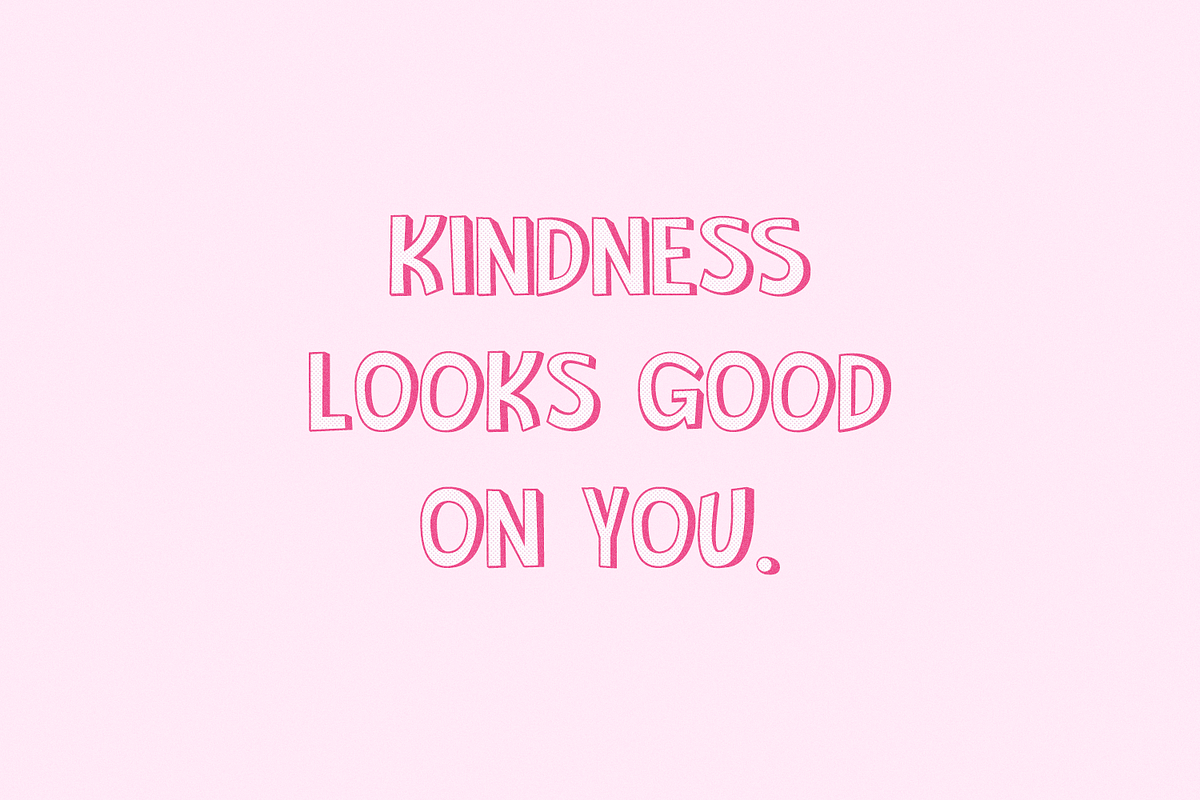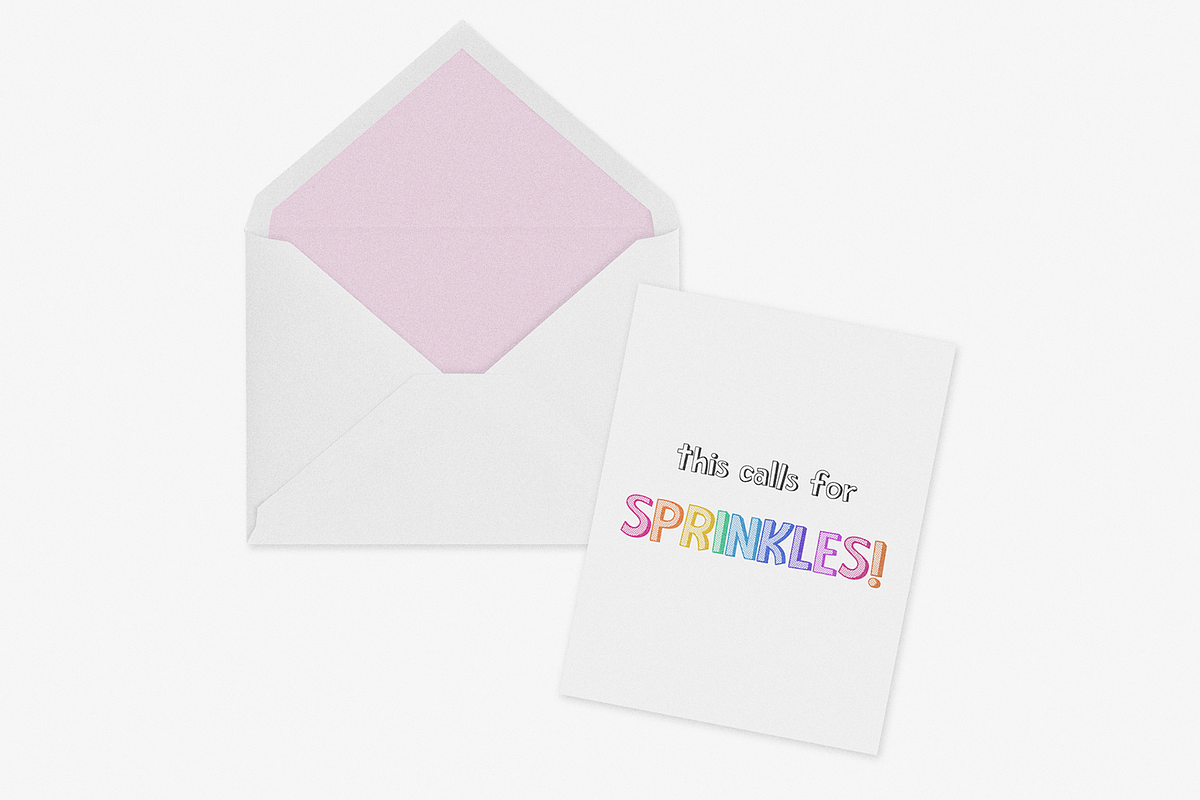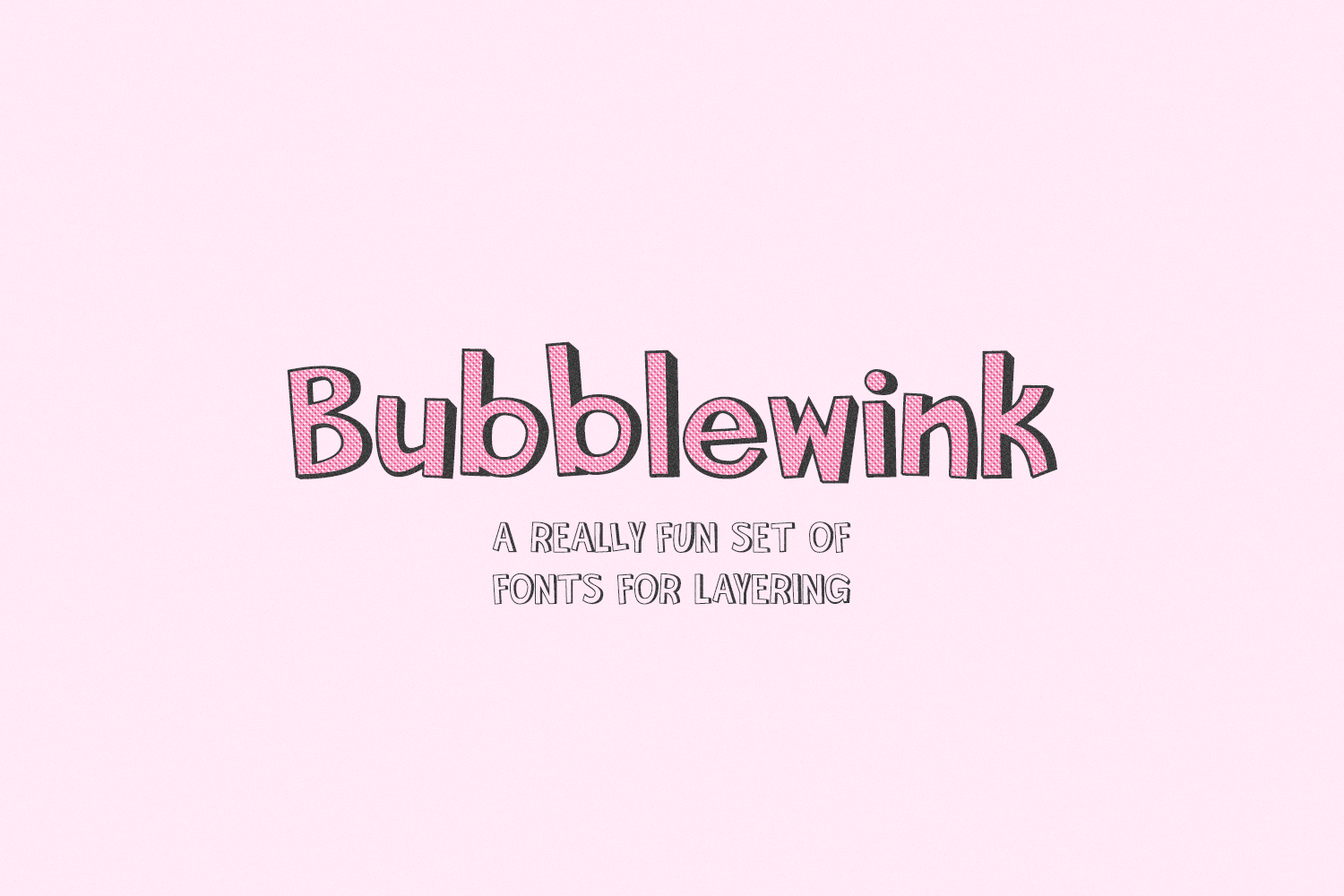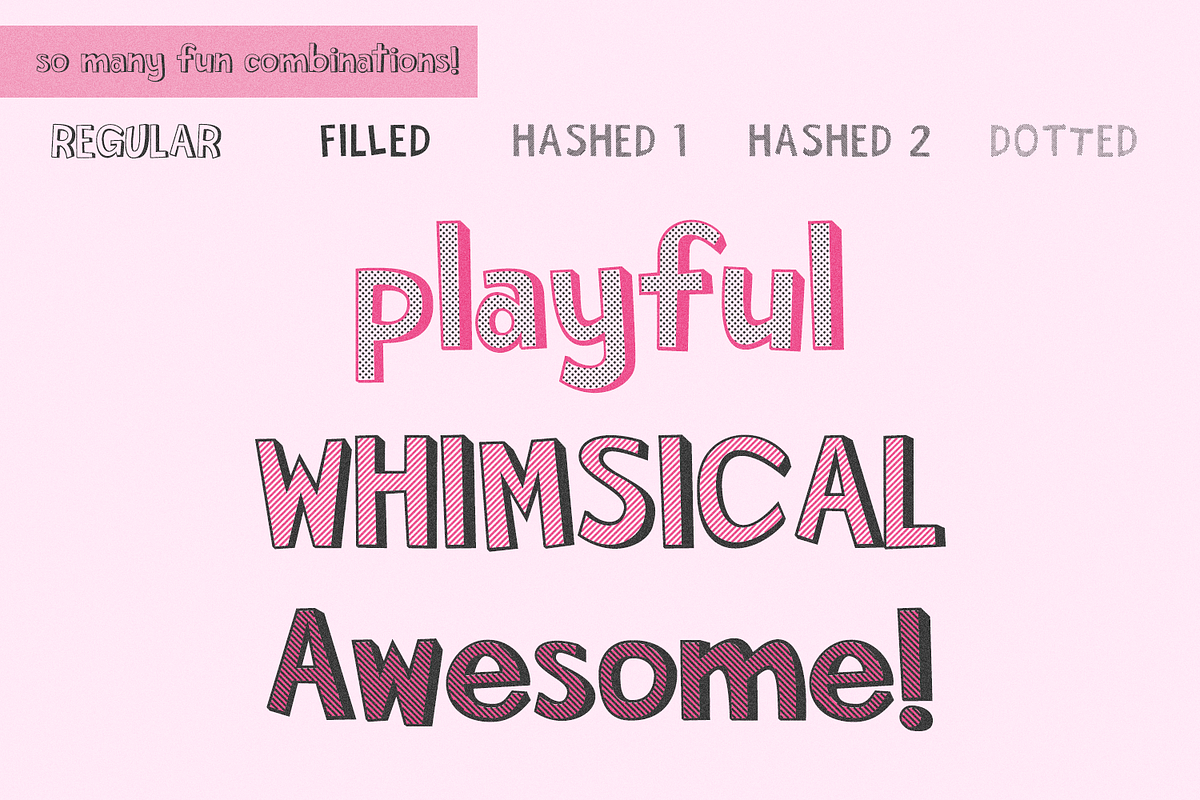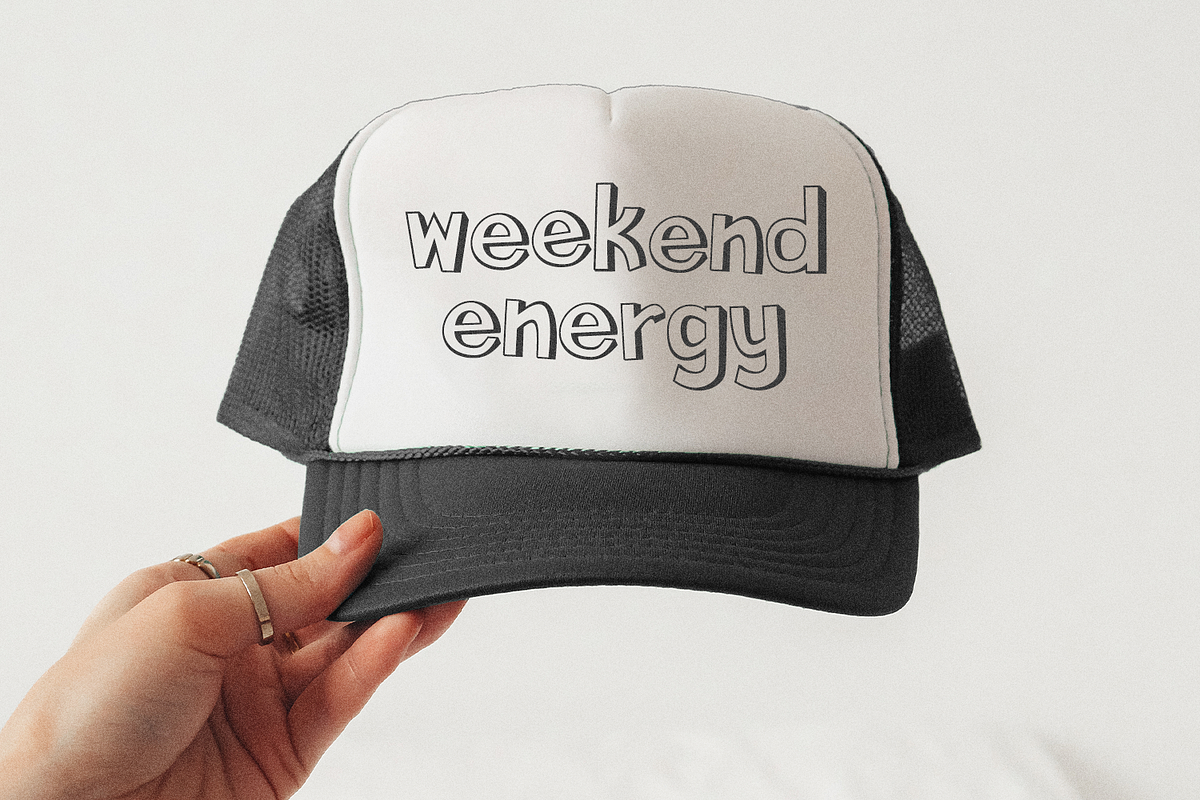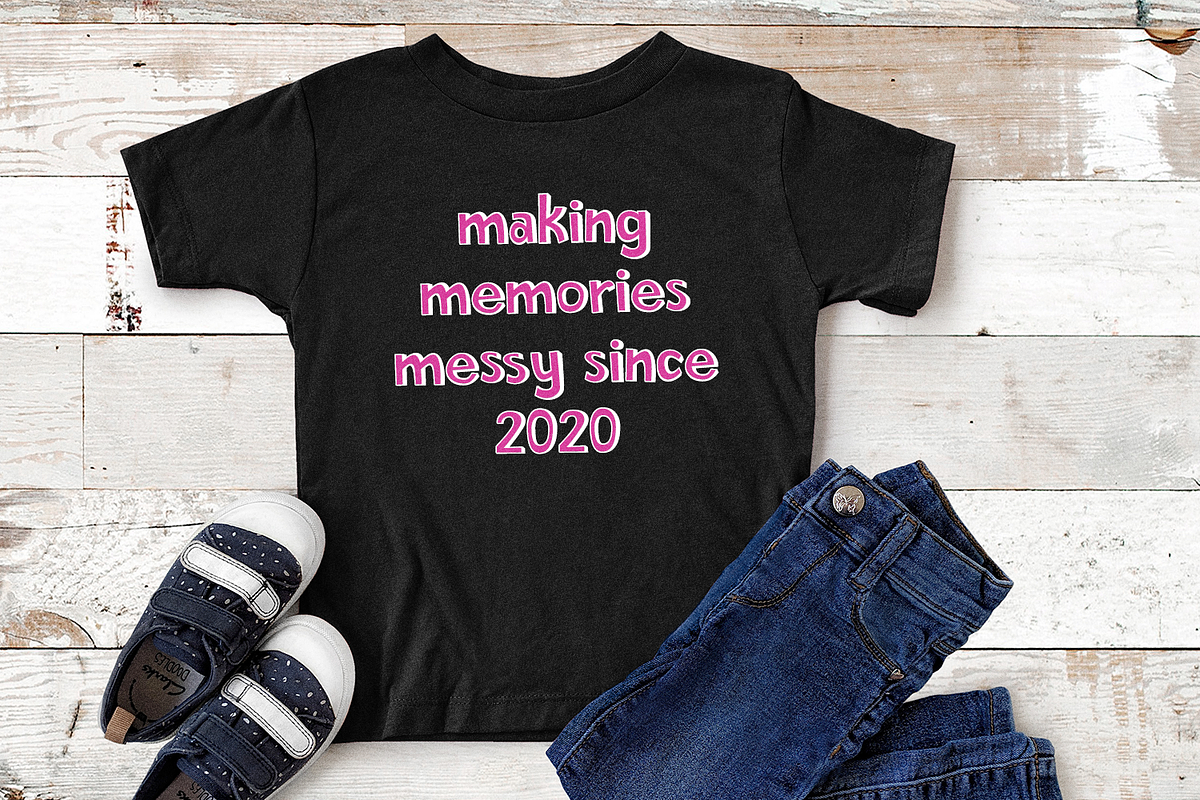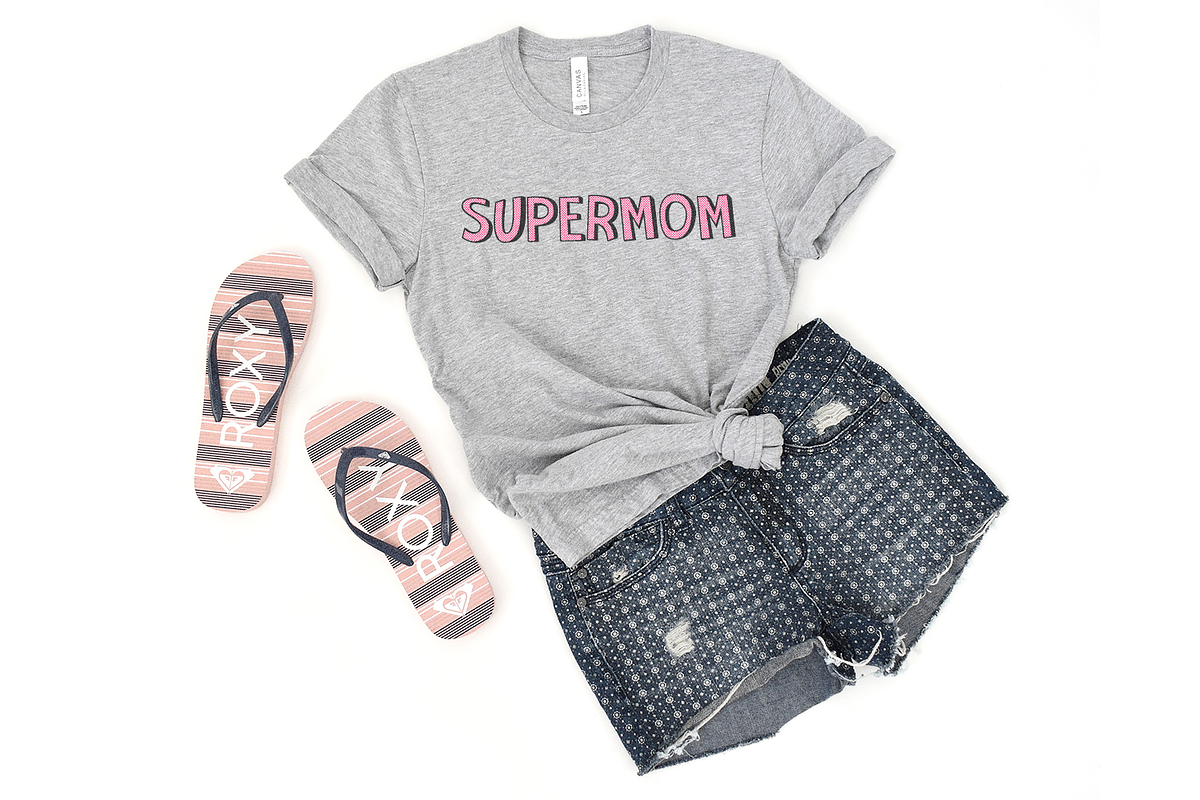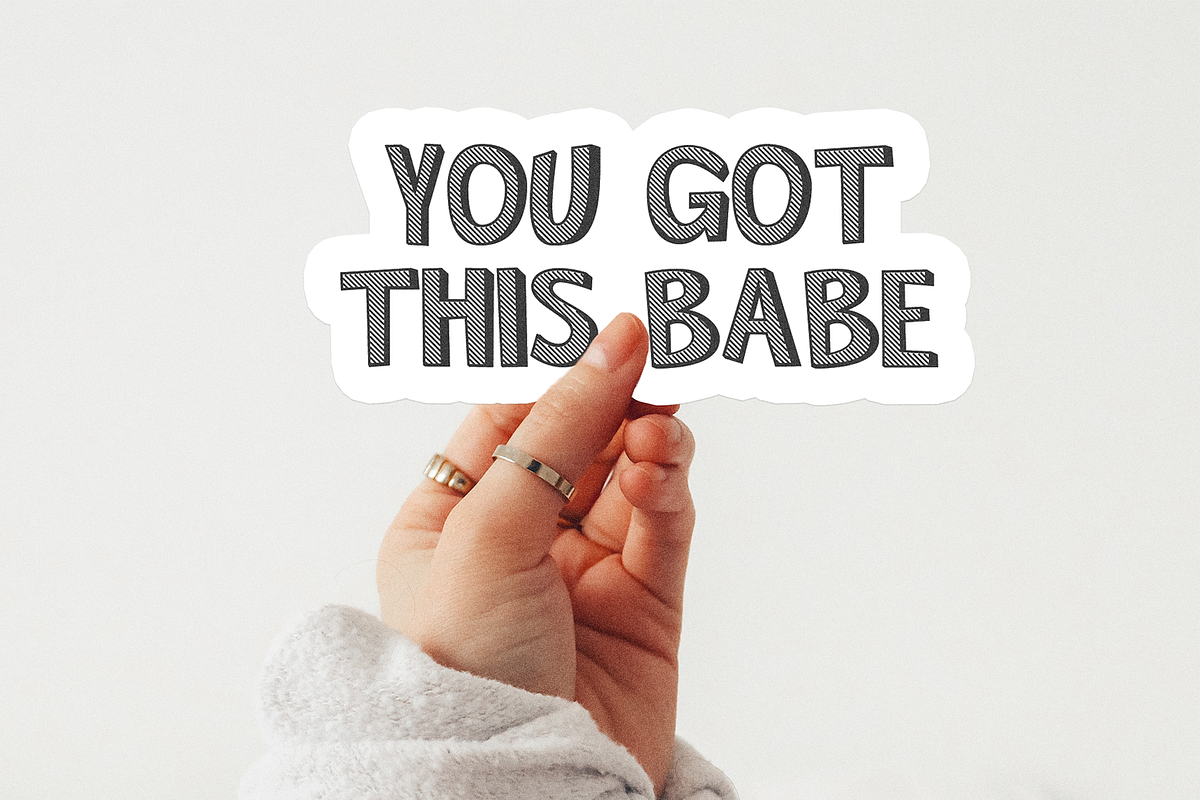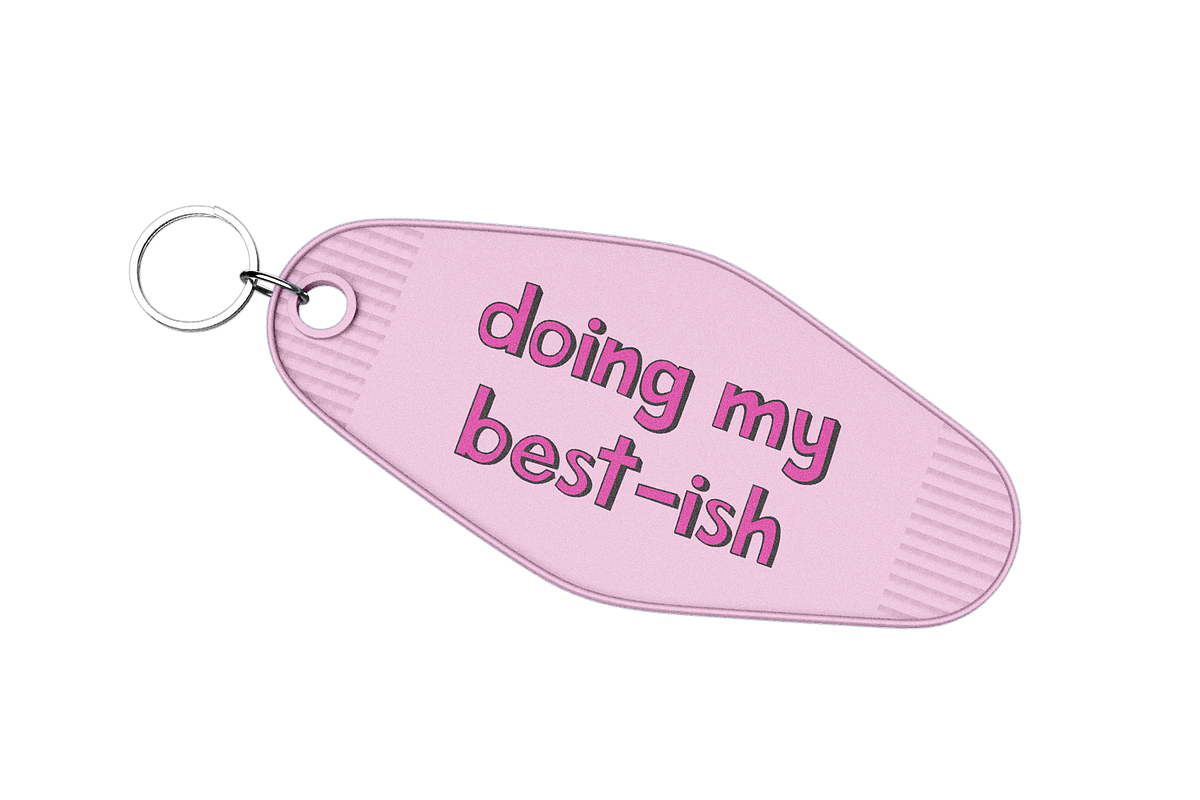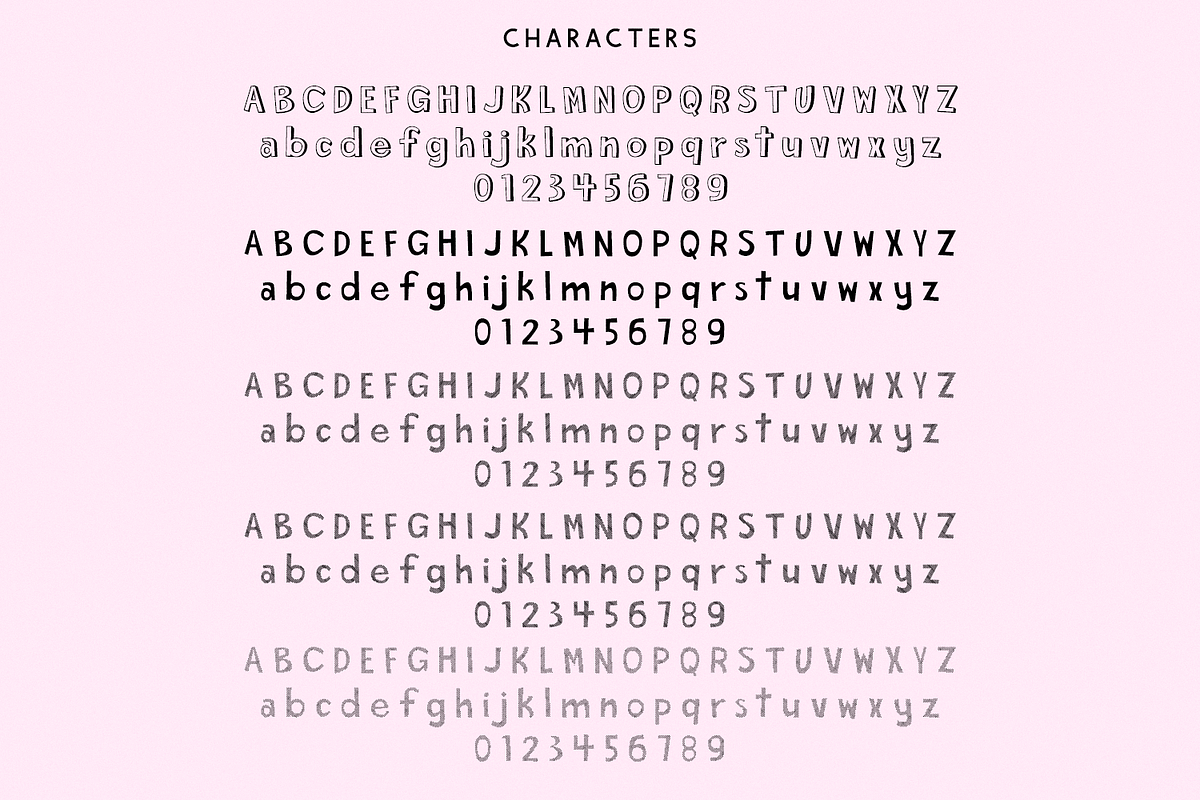
Bubblewink Sans - Fonts for Layering
Bubblewink Sans is a five font family designed for layering. Mix and match versions to create different layered effects using one color, or more than one color text. Bubblewink is best for cute crafty projects, signs, greeting cards, marketing materials, and social media graphics.
This set of fonts includes the regular (shadowed) version, filled, hashed 1, hashed 2, and dotted.
Bubblewink includes:
– full upper + lowercase characters
– numbers + punctuation
– 52 double letter ligatures